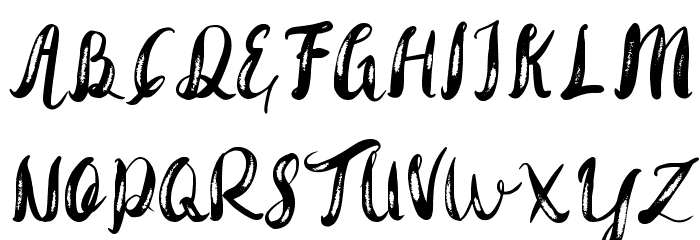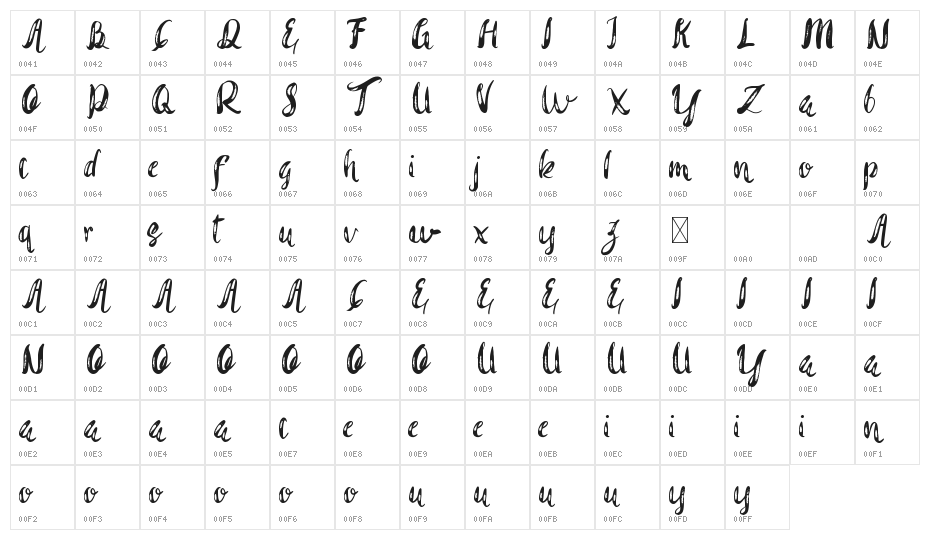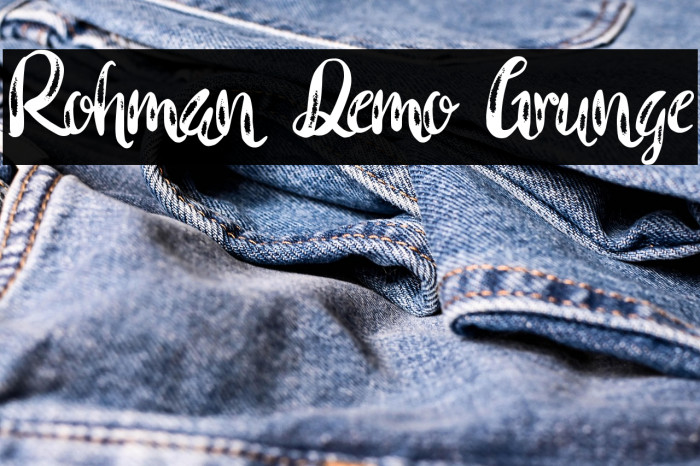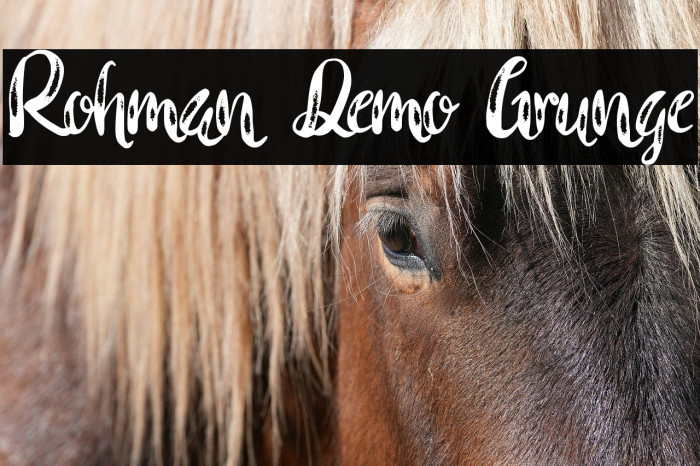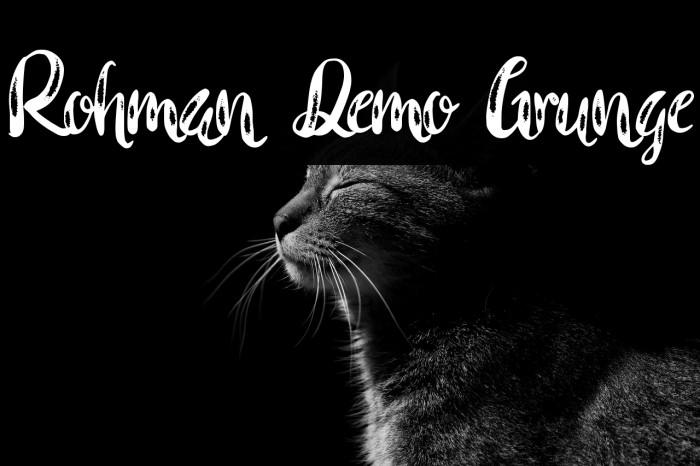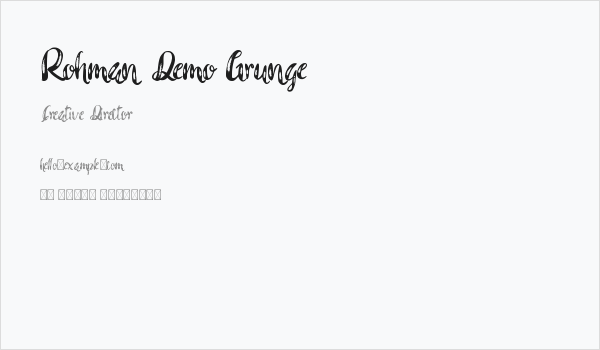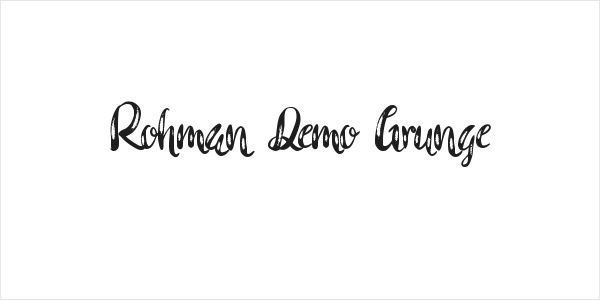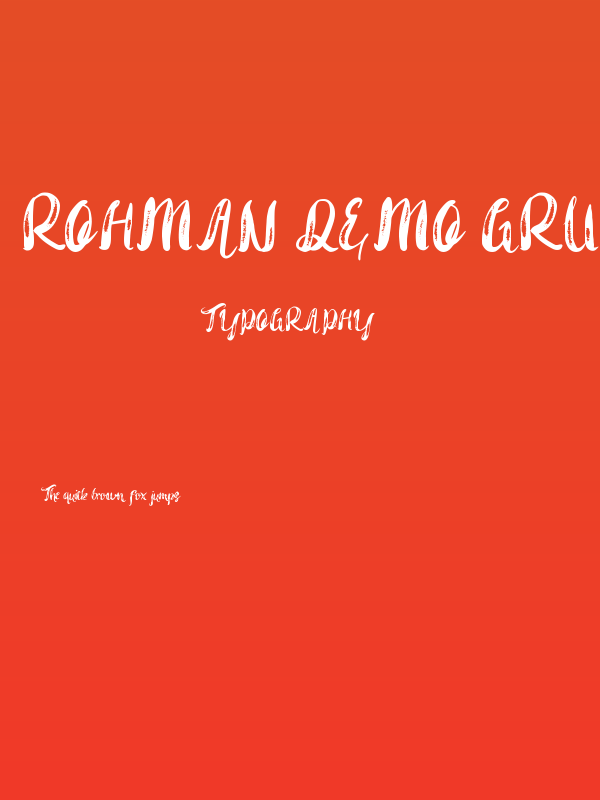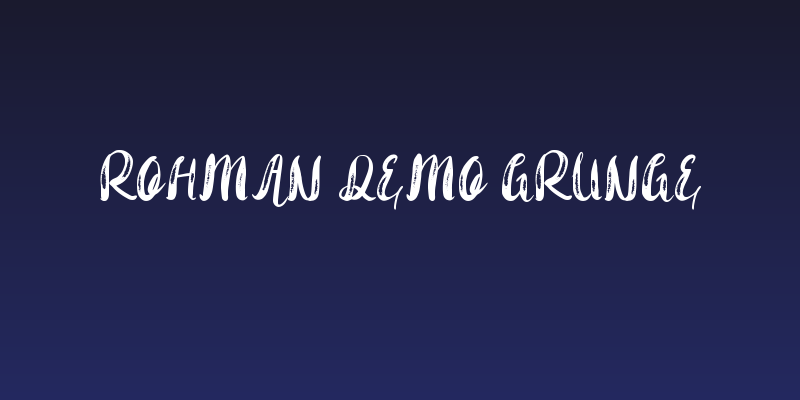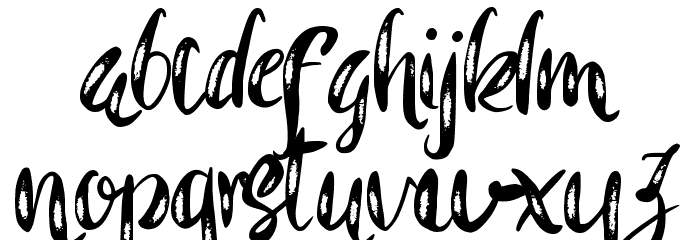
Rohman Demo Grunge Font
Rohman Demo Grunge Description
This font features a bold, expressive style with a grunge texture that gives it a distressed and artistic appearance. The characters are designed with a brush-like quality, showcasing irregular strokes and varying thicknesses that add a dynamic and energetic feel. The uppercase and lowercase letters maintain a consistent flow, while the numbers and special characters complement the overall aesthetic. This font is ideal for projects that require a bold statement or an edgy, creative touch.